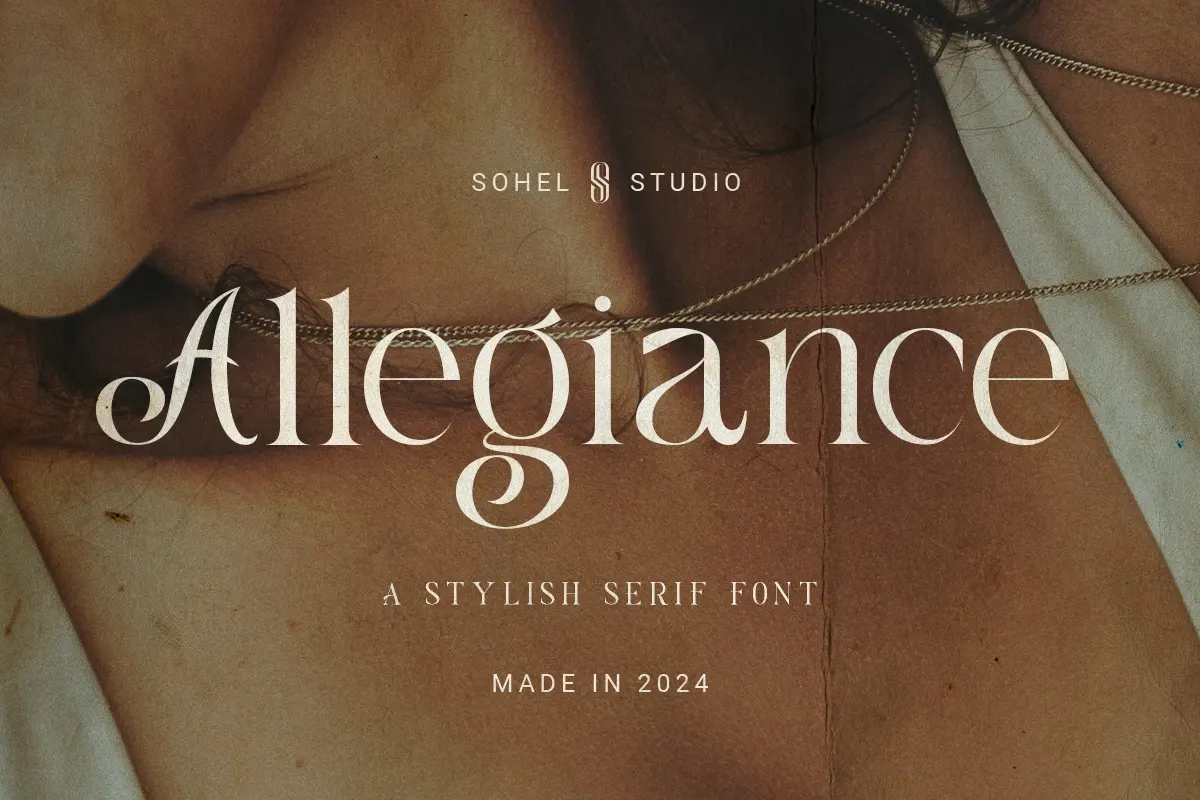
Allegiance - Unique Alternate Font Free Download
Allegiance - Unique Alternate Font Free Download is a distinct and stylish typeface that brings boldness and creativity to any design. Featuring unique alternate characters and a modern design, this font is perfect for logos, branding, posters, headlines, and any project that needs an eye-catching, one-of-a-kind look.
With its clean lines and geometric structure, Allegiance offers flexibility while still making a statement. Its alternate characters add a layer of customization to your work, allowing you to create dynamic and fresh designs that stand out.